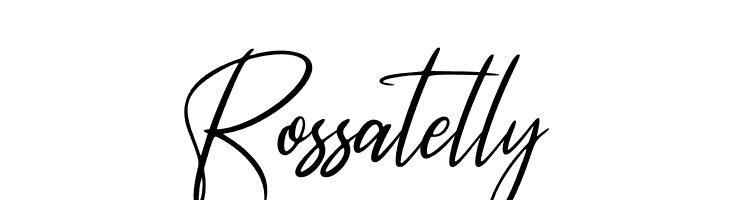
A playful, textured font with a hand-drawn, grater-like effect.
A modern, geometric sans-serif font with clean lines and uniform strokes.
A bold, condensed font with a dynamic slant and strong visual impact.
A fluid and elegant cursive script font with a dynamic, handwritten style.
A bold, distressed font with a rugged, urban aesthetic.
An elegant and artistic font with decorative flair and intricate details.
A bold, collegiate-style font with strong, angular lines and a three-dimensional outline.
A modern serif font with playful curves and sharp edges.
A playful font with bold, rounded letters and a zigzag pattern.
A bold, decorative font with a 3D effect and intricate patterns.